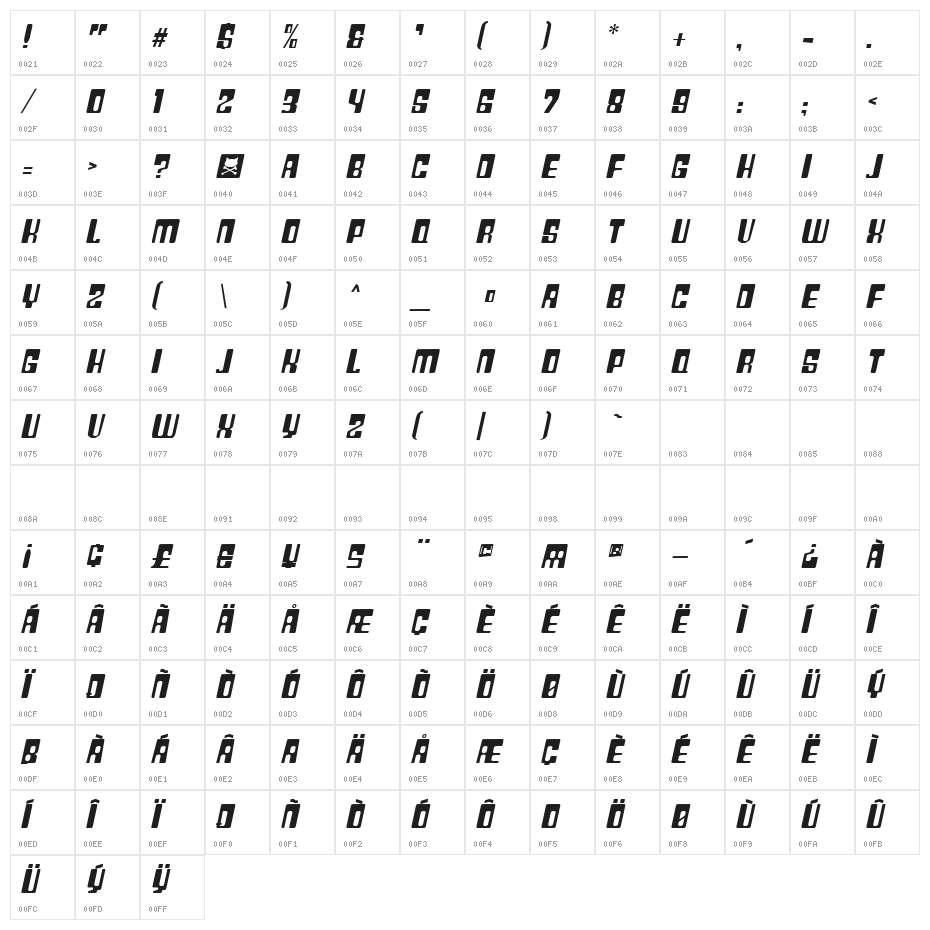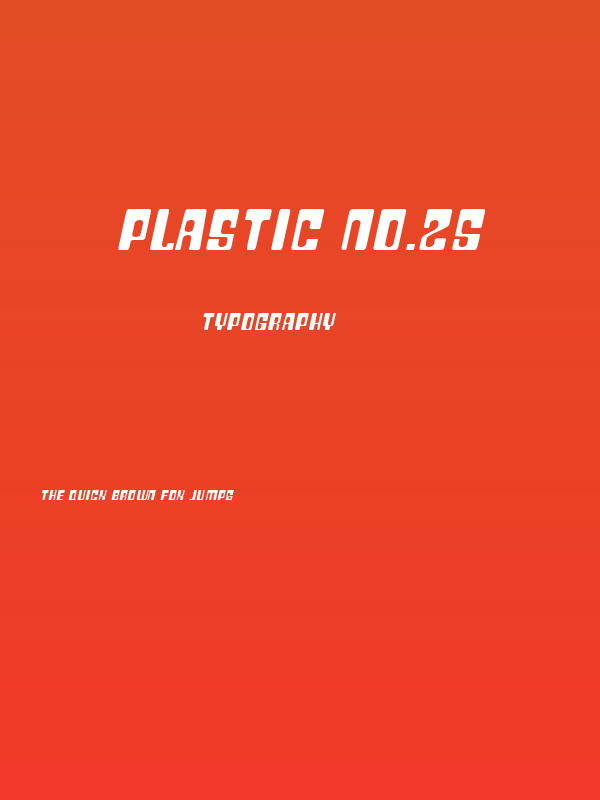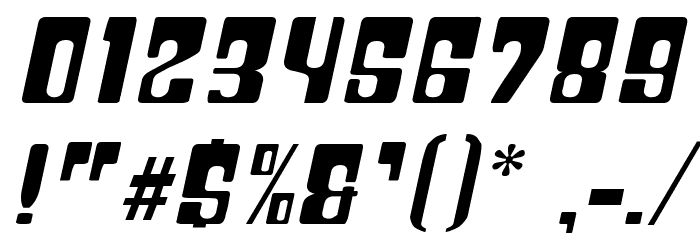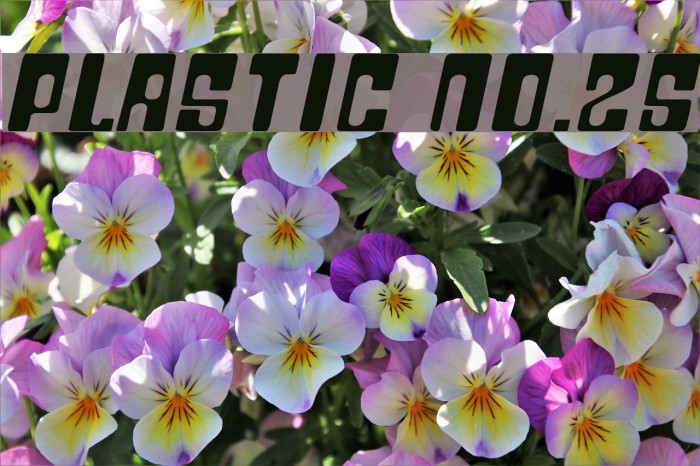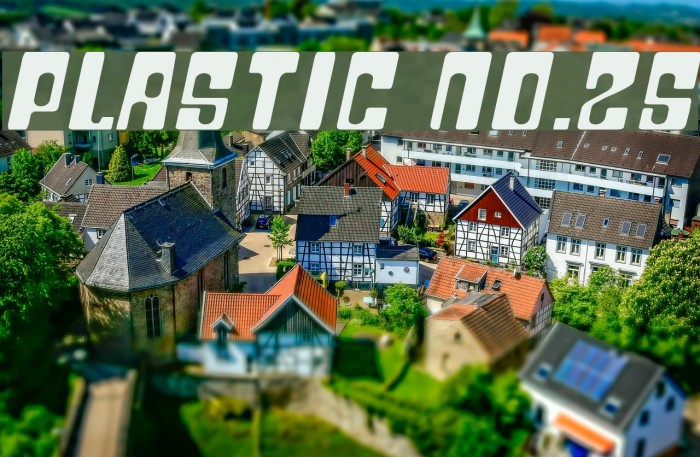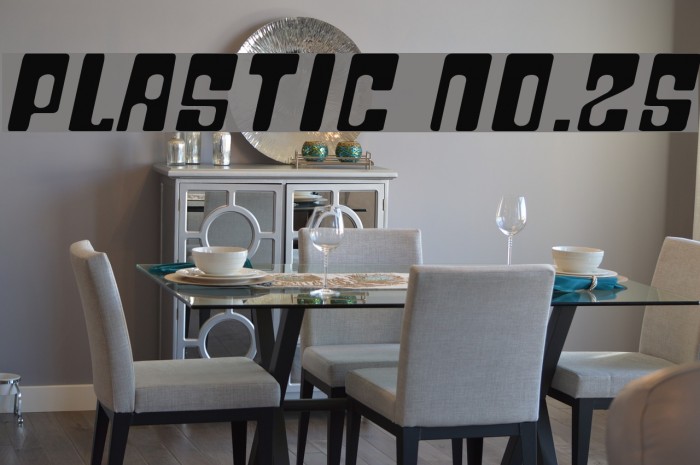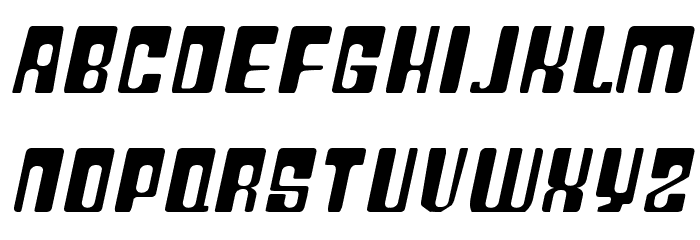
Plastic No.25 Font
Plastic No.25 Description
This font features a bold and dynamic style with a strong geometric influence. The characters are slightly condensed, giving it a compact appearance, while maintaining a sense of movement and energy. The uppercase letters are particularly striking, with angular cuts and sharp edges that create a sense of forward momentum. The lowercase letters complement this with a similar angularity, though they are slightly more rounded, providing a balance between sharpness and readability. The numerals are consistent with the overall style, featuring the same bold and angular characteristics. Special characters maintain the geometric theme, ensuring a cohesive look across all glyphs. This font is ideal for projects that require a modern and impactful aesthetic.
| Proposed Projects | Ideal for sports branding, modern posters, dynamic logos, and tech-related designs. |